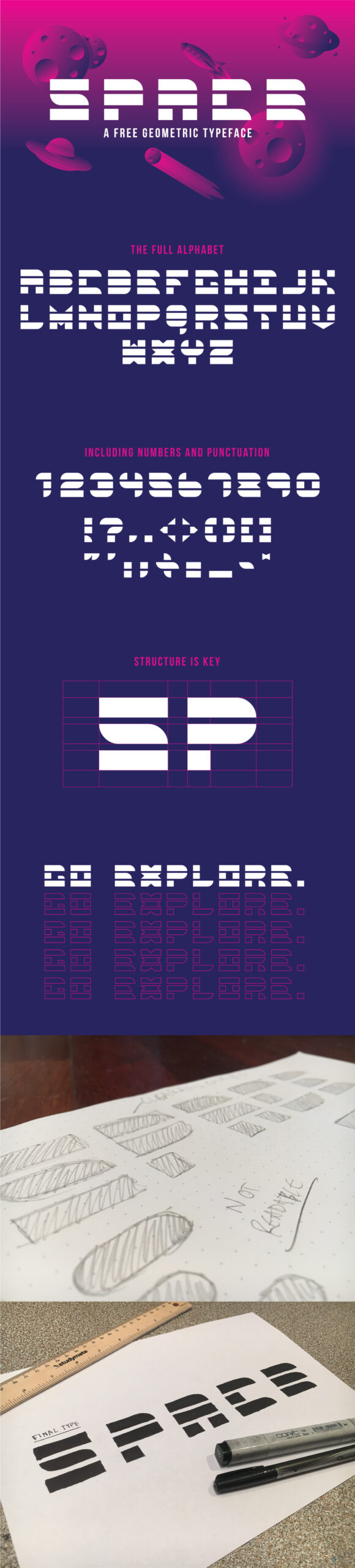
Space, created by Odin Lowsley, is a futuristic font with a touch of retro style. Space was created to represent the structure and order found within spaceships, with curved edges and large block elements. The font is perfect for standing out on it’s own, great for headers and large titles. Free for personal and commercial use!